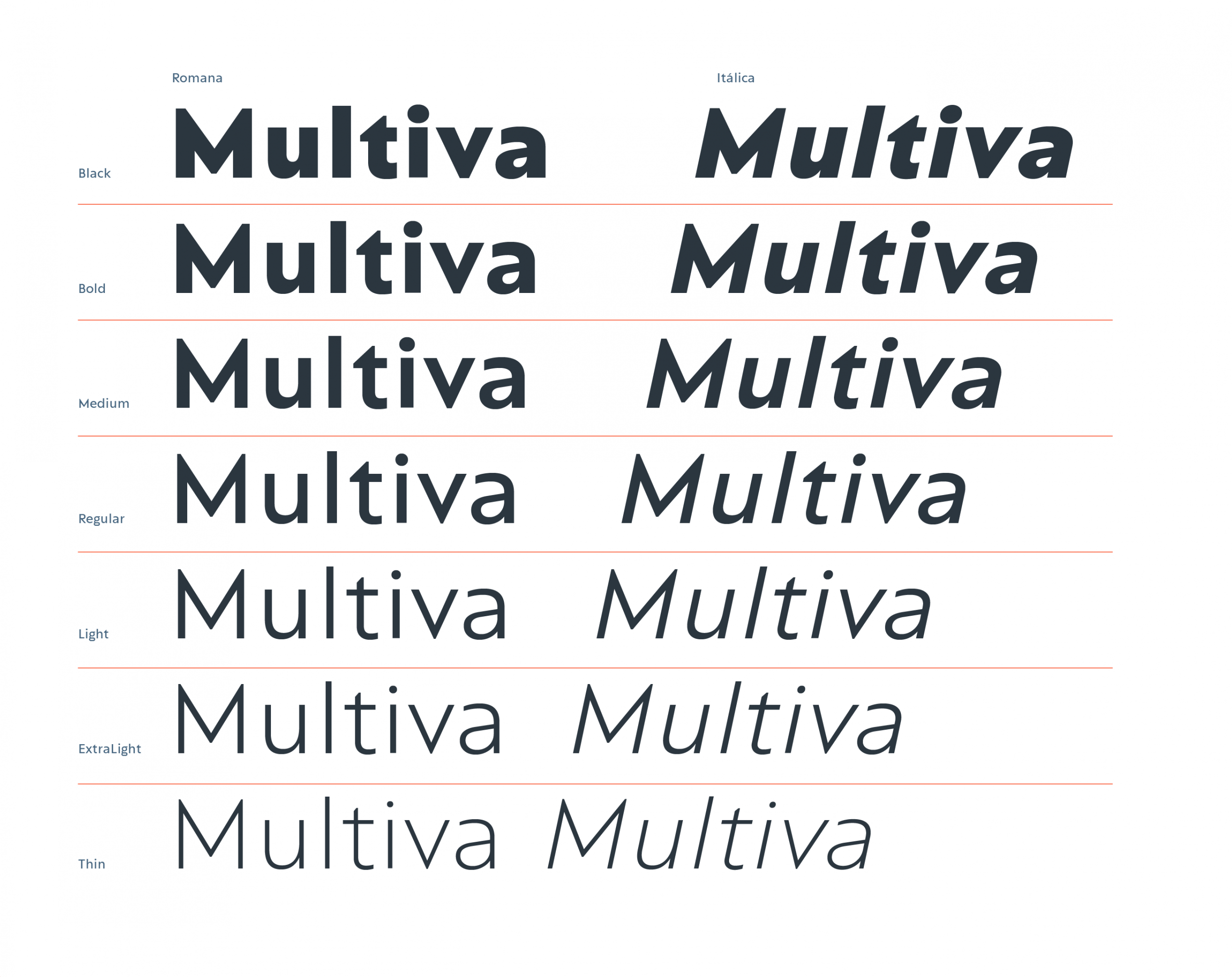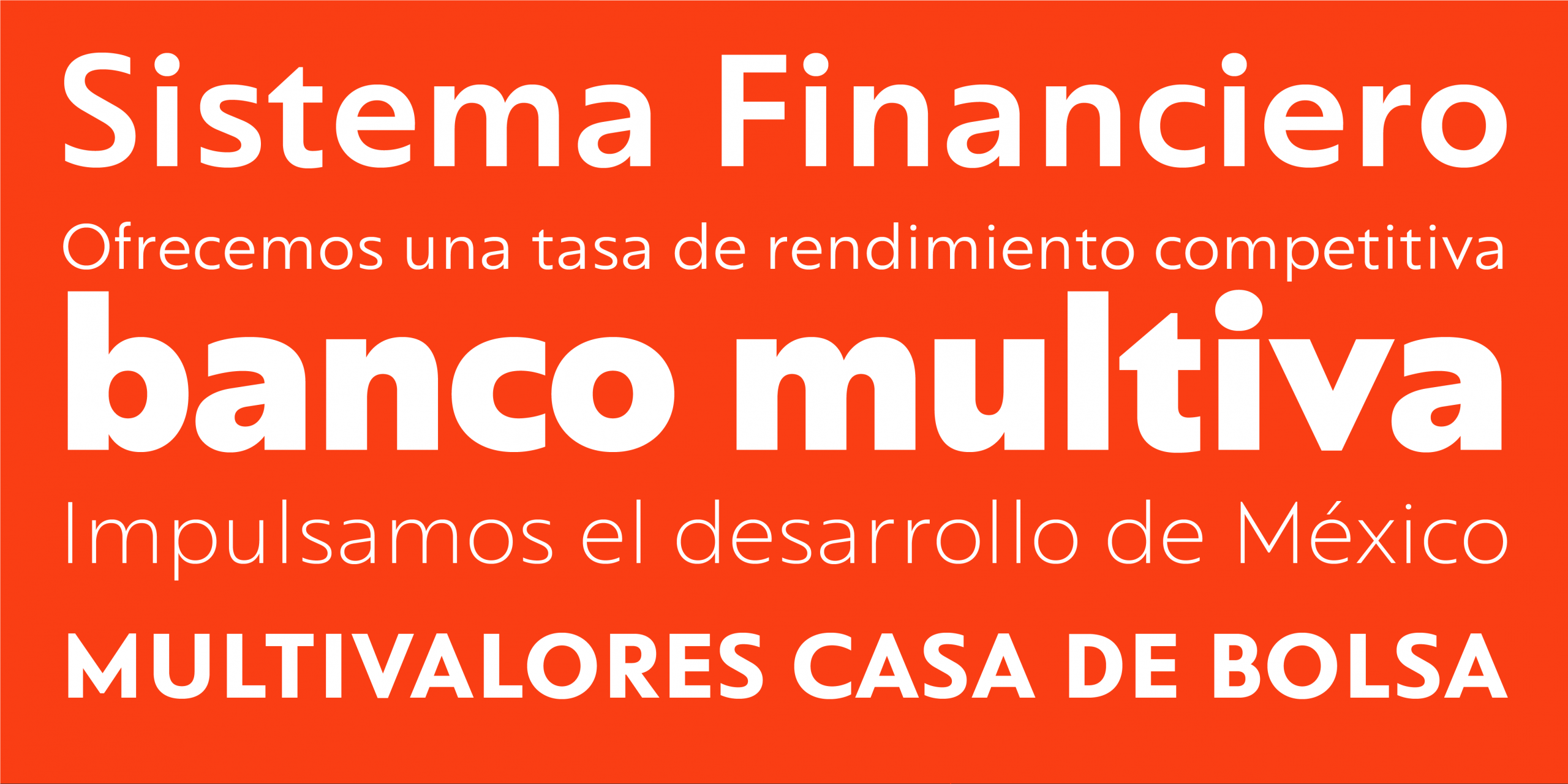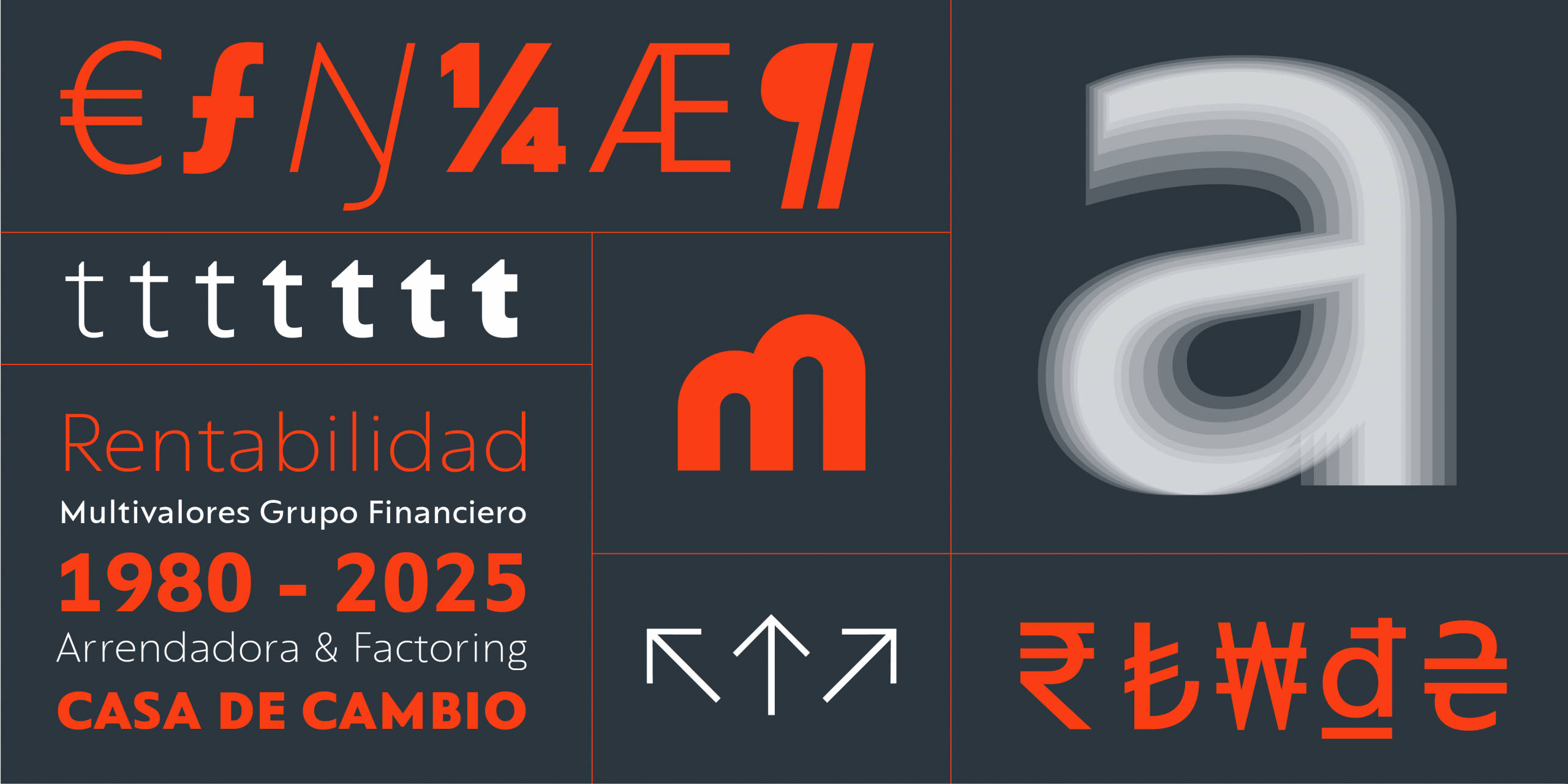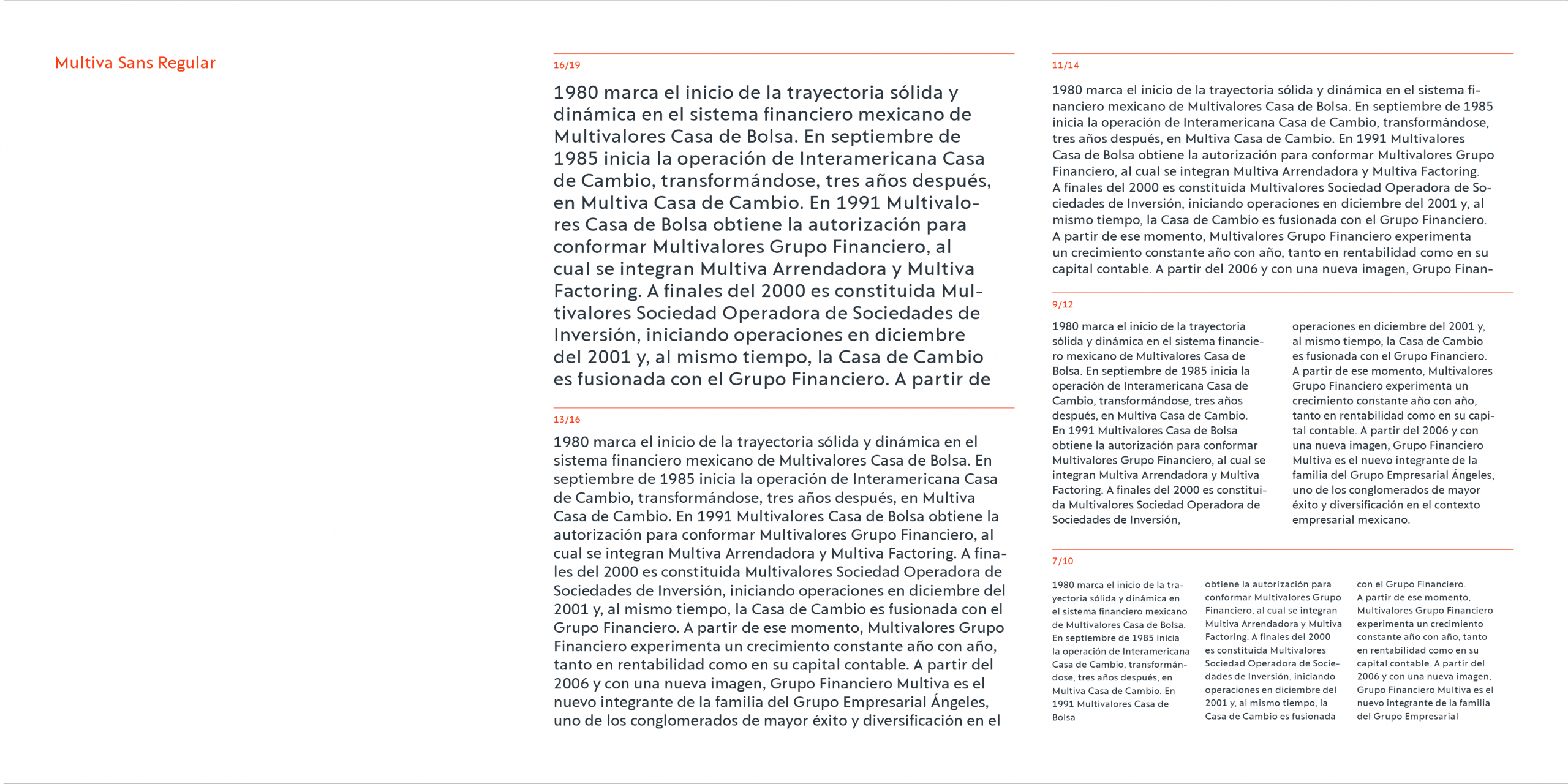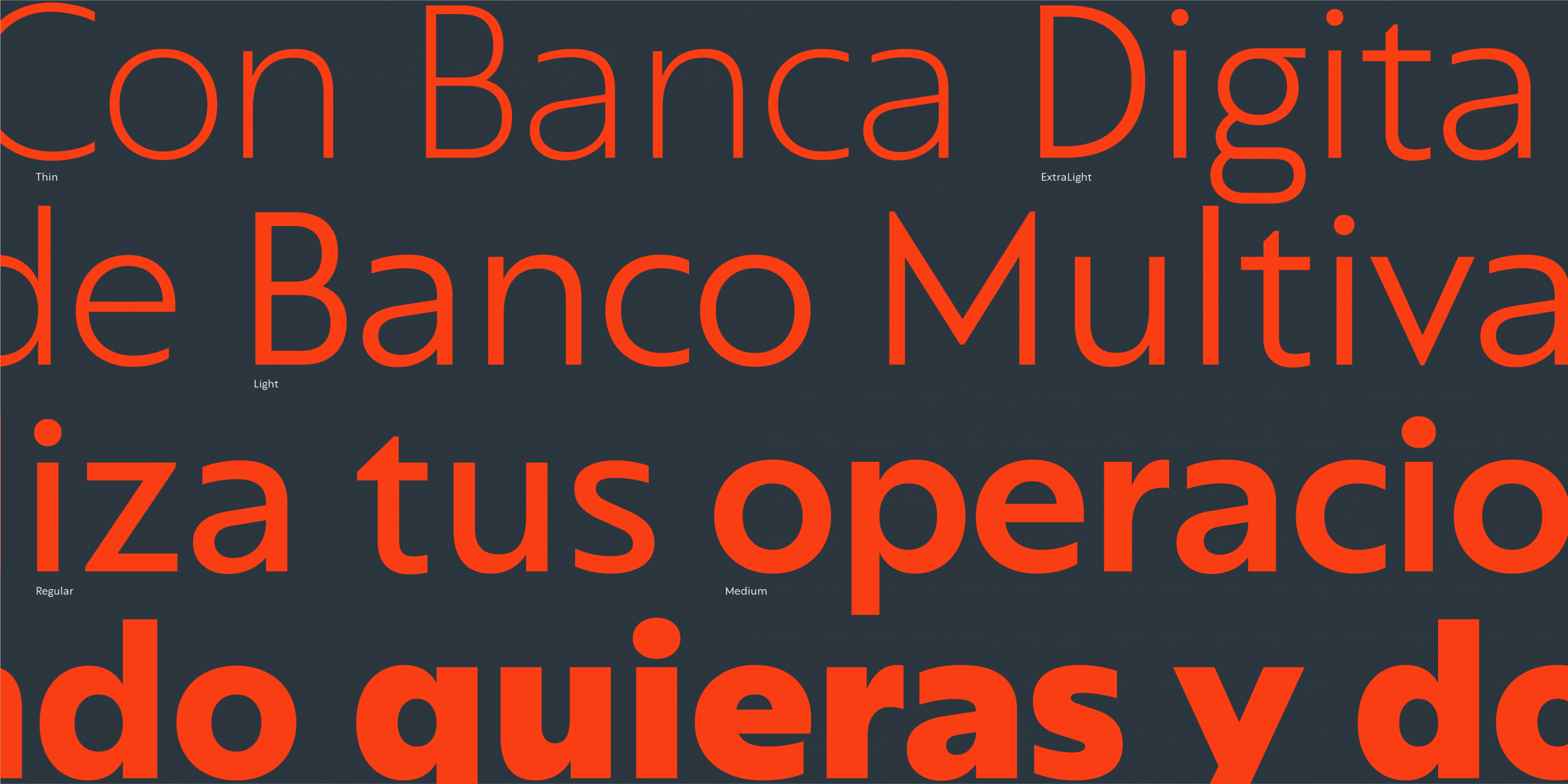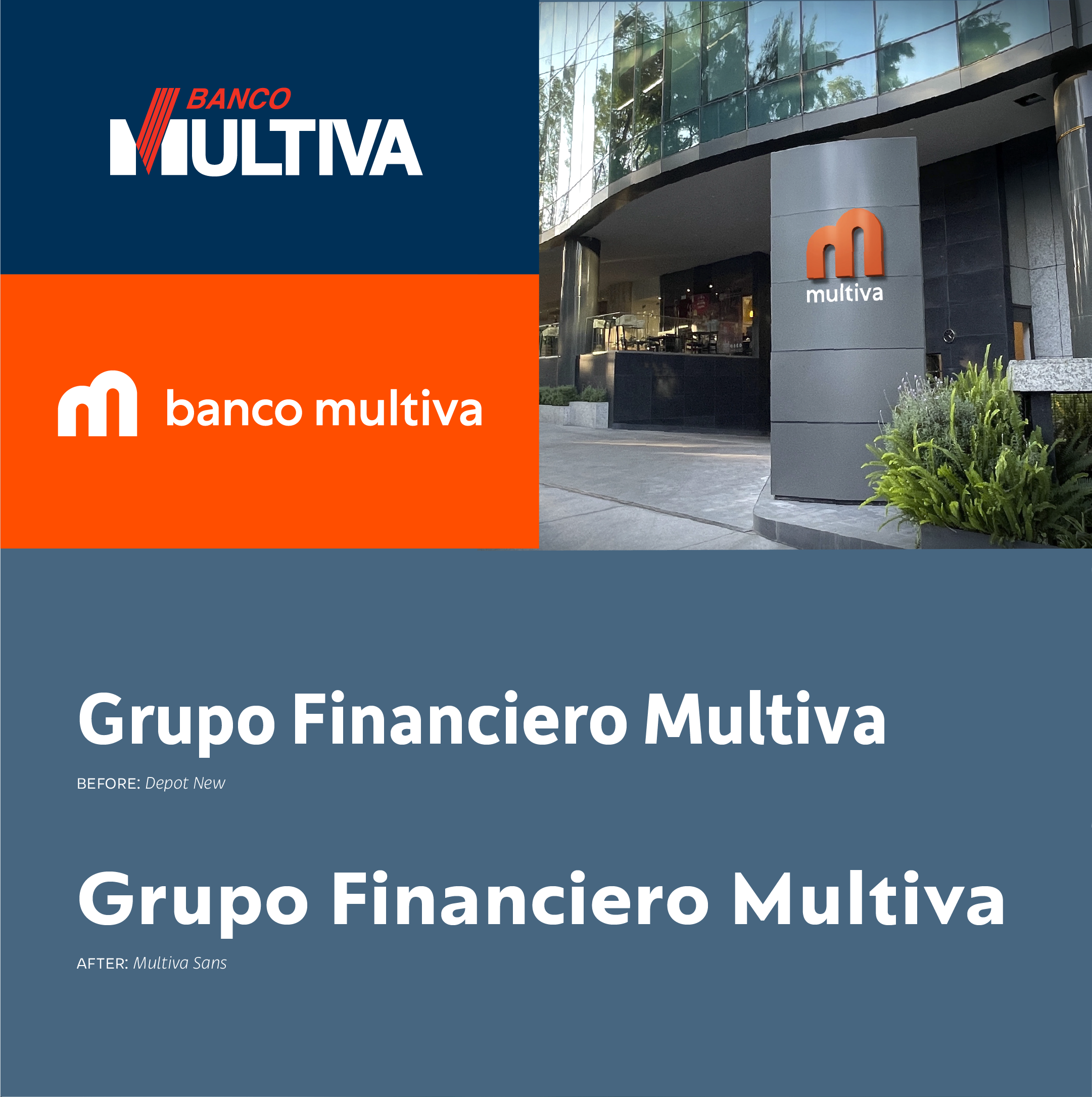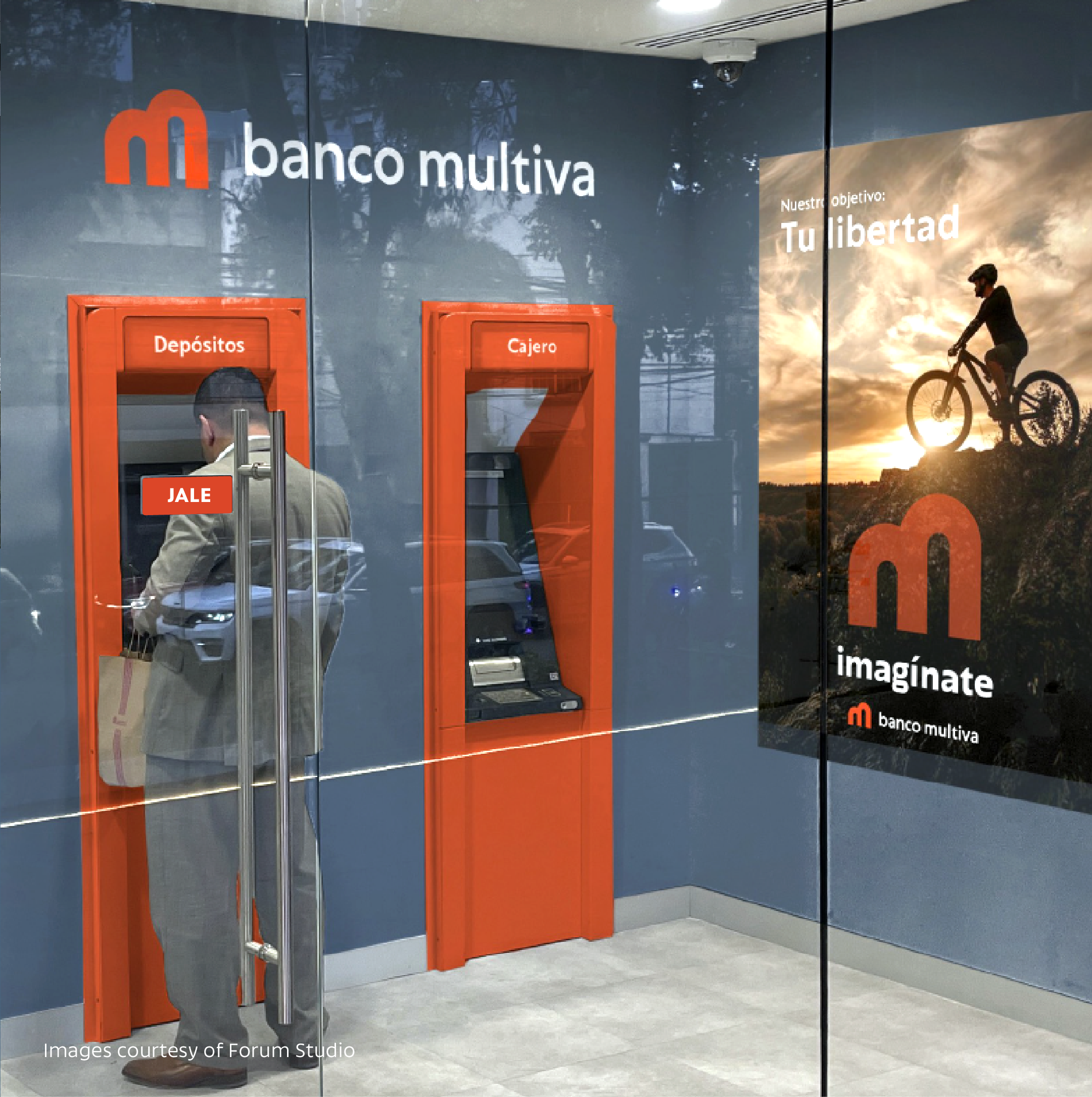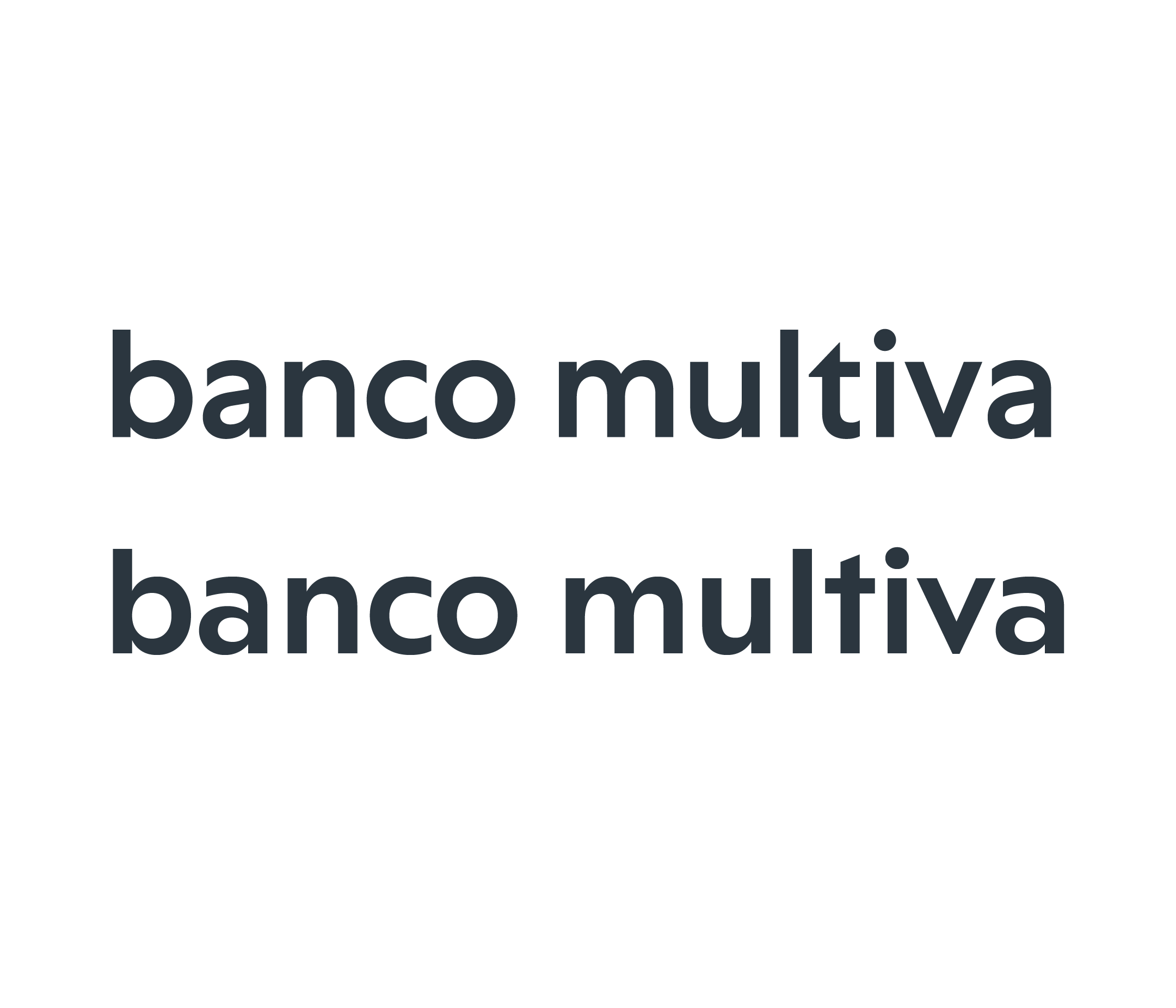
Typography as a strategic asset: the story behind the creation of an exclusive visual voice for Banco Multiva, designed to support its new identity, scale with the brand, and perform consistently across every touchpoint.
Carlos Ochoa, creative director at Forum Studio, approached us to develop a branding system for Banco Multiva, which had recently refreshed its logo after nearly 40 years. Our task was to create a cohesive typographic identity that aligns with the bank’s new era.
During the analysis phase, we identified the need to license a corporate typeface that would identify the bank and could be implemented in all its branches in Mexico, at ATMs, in apps, on websites, and in all its future marketing campaigns.
In this search, we suggested customizing a typeface that we were developing in collaboration with our friend and teacher Elí Castellanos, from CocijoType. Colossus adapted very well to the logo’s shapes, fulfilling the objective of identifying the Bank and being exclusive under the name Multiva Sans, as well as being scalable with the Bank’s growth, under a perpetual license.
Part of the modifications we made was to change some characters, such as the /M/, the Bank’s flagship letter, and the /a/, /g/, and /t/.
We also slightly increased the ascender proportions to improve performance in body text, especially in long texts such as contracts.
We extended the monetary symbols, since, as a bank, this was a priority due to their prevalence; the same was done when establishing the default tabular symbols, such as numbers, monetary, and mathematical symbols, monospaced in each weight and style variant for better table performance.
Finally, since this is a typeface for digital devices, we added Manual Hinting to improve rasterization on Windows and Mac platforms.
The result was very favorable, and the implementation was a success. By modifying a typeface from our catalog, the client saved thousands of dollars because they no longer had to purchase additional licenses for new applications and users. This also eliminated the risk of inadvertently breaching the EULA. Additionally, they received a typeface tailored to their needs, without paying for an entirely new project.